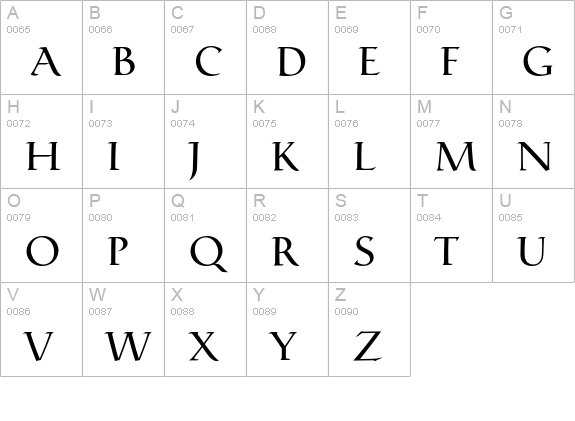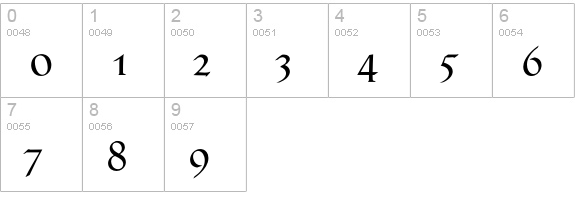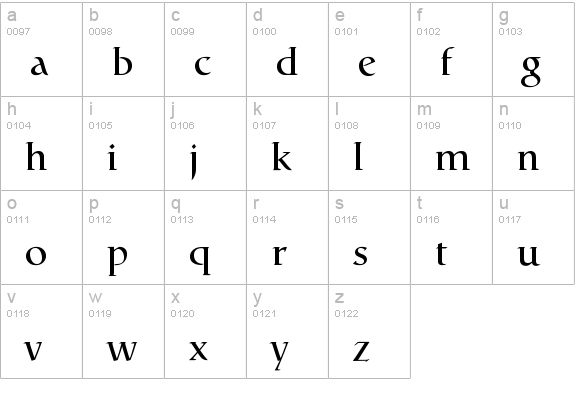
Catull Expert BQ Regular OsF Font Details
Catull Expert BQ Regular OsF is the standard, neutral variant in the Catull typeface family \xE2\x80\x94 well suited to general body text, paragraphs, and standard typographic work.
Catull Expert BQ Regular OsF is a sophisticated and elegant font that exudes a timeless charm and classic appeal. With its refined serifs and delicate curves, this typeface is perfect for projects that require a touch of sophistication and elegance. Whether used for branding, editorial design, or invitations, Catull Expert BQ Regular OsF will elevate any design with its understated beauty. What sets this font apart is not just its design, but also the fact that it is freely available to download at FontsMarket.com. Designers and creatives looking to add a touch of elegance to their projects can now easily access this premium font without any cost. Don't miss the opportunity to enhance your designs with the beauty of Catull Expert BQ Regular OsF - download it for free today at FontsMarket.com.